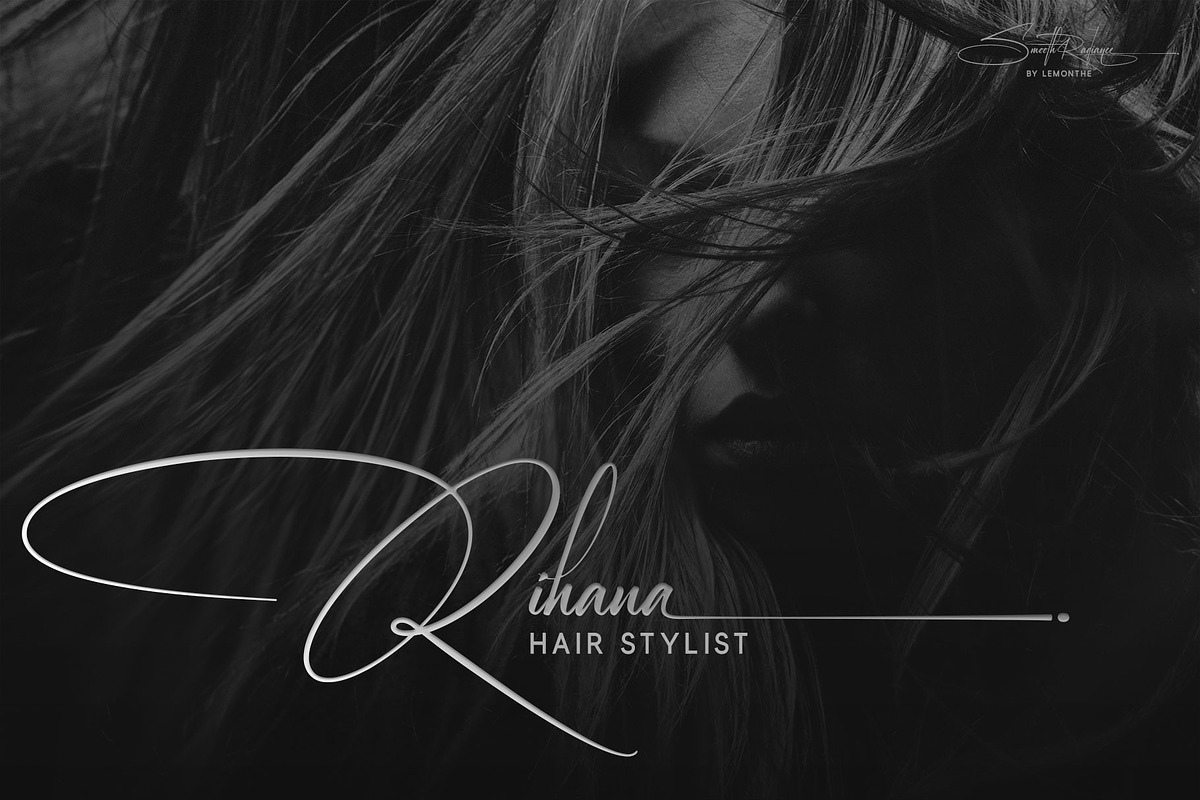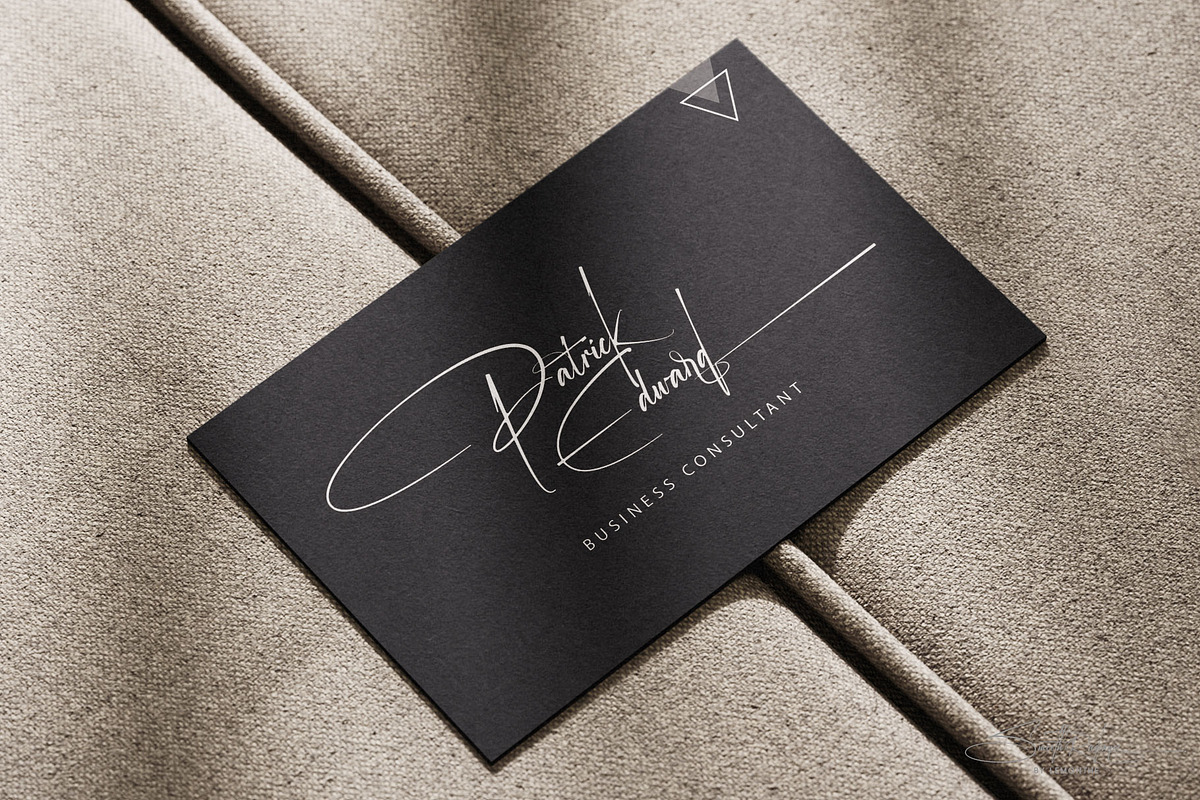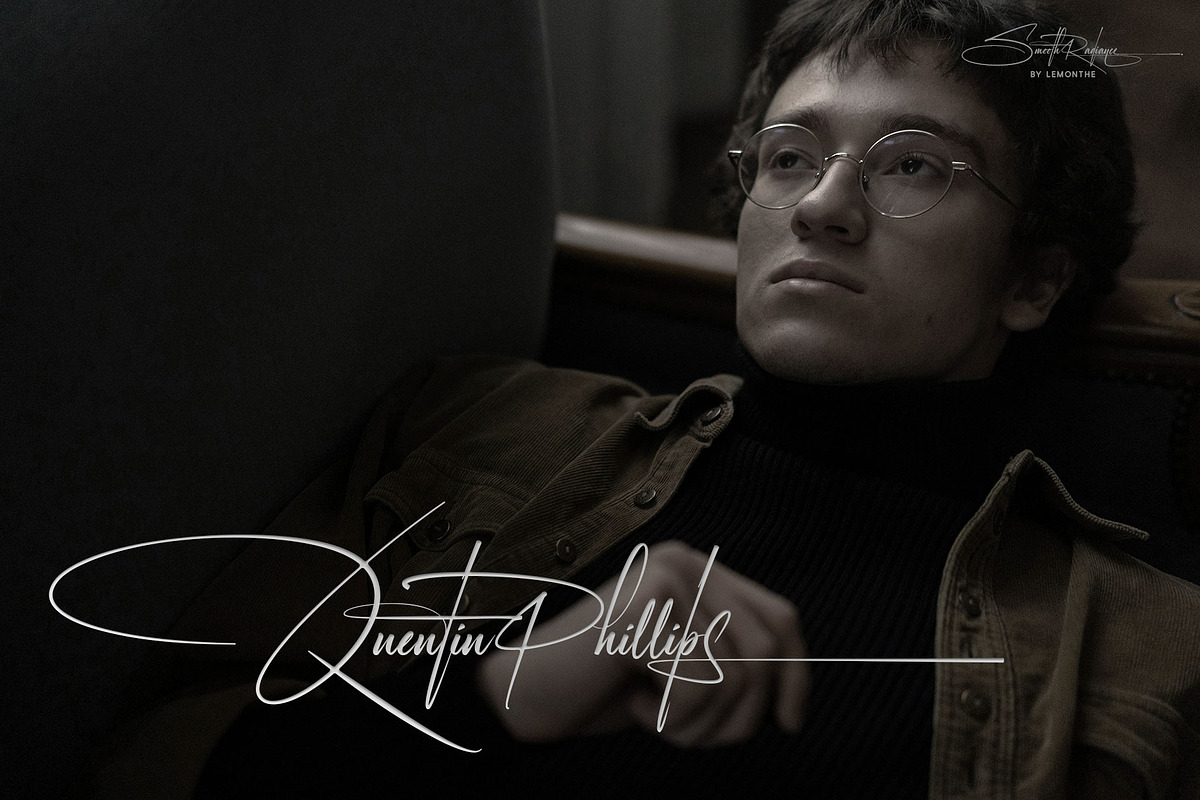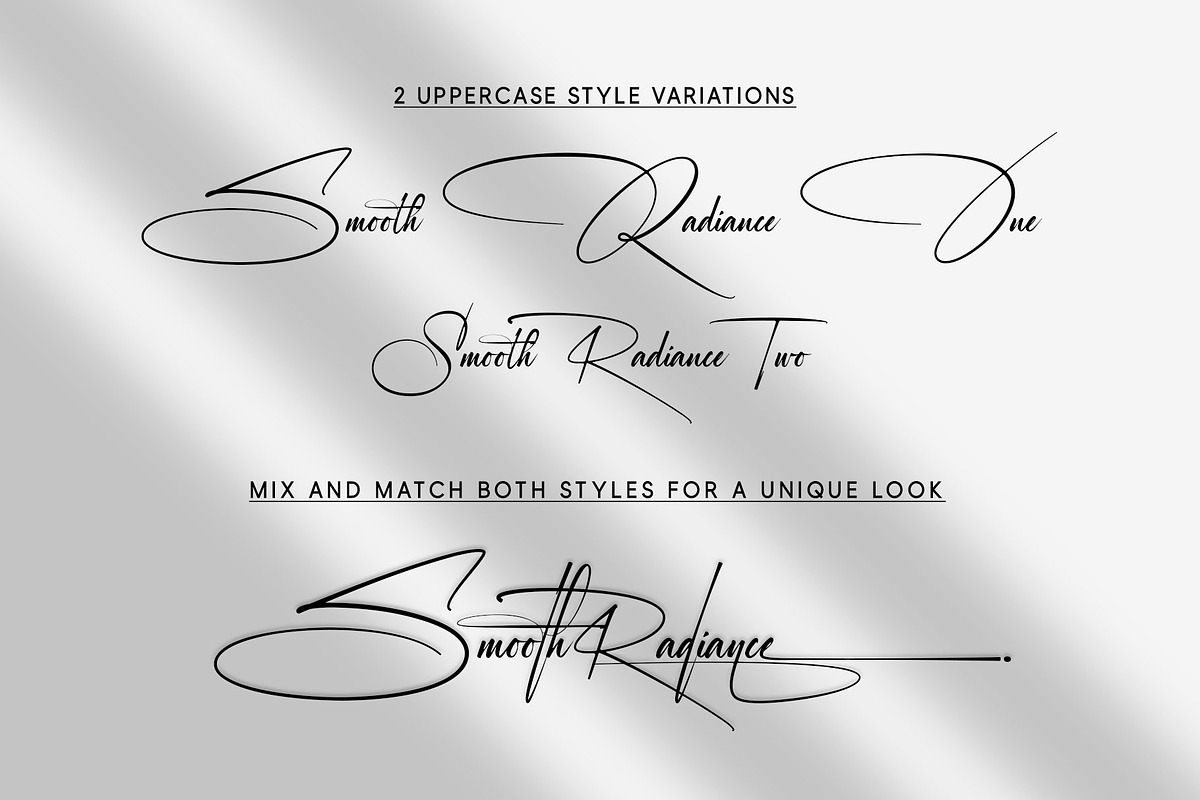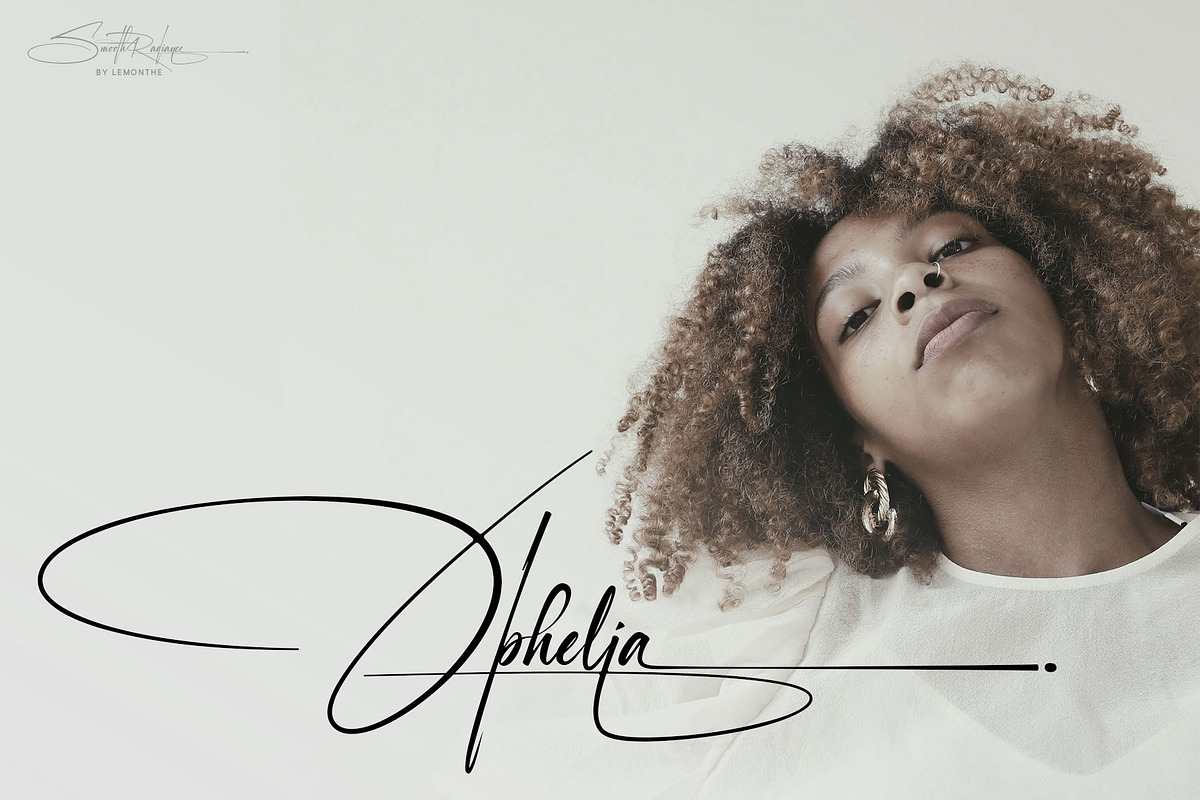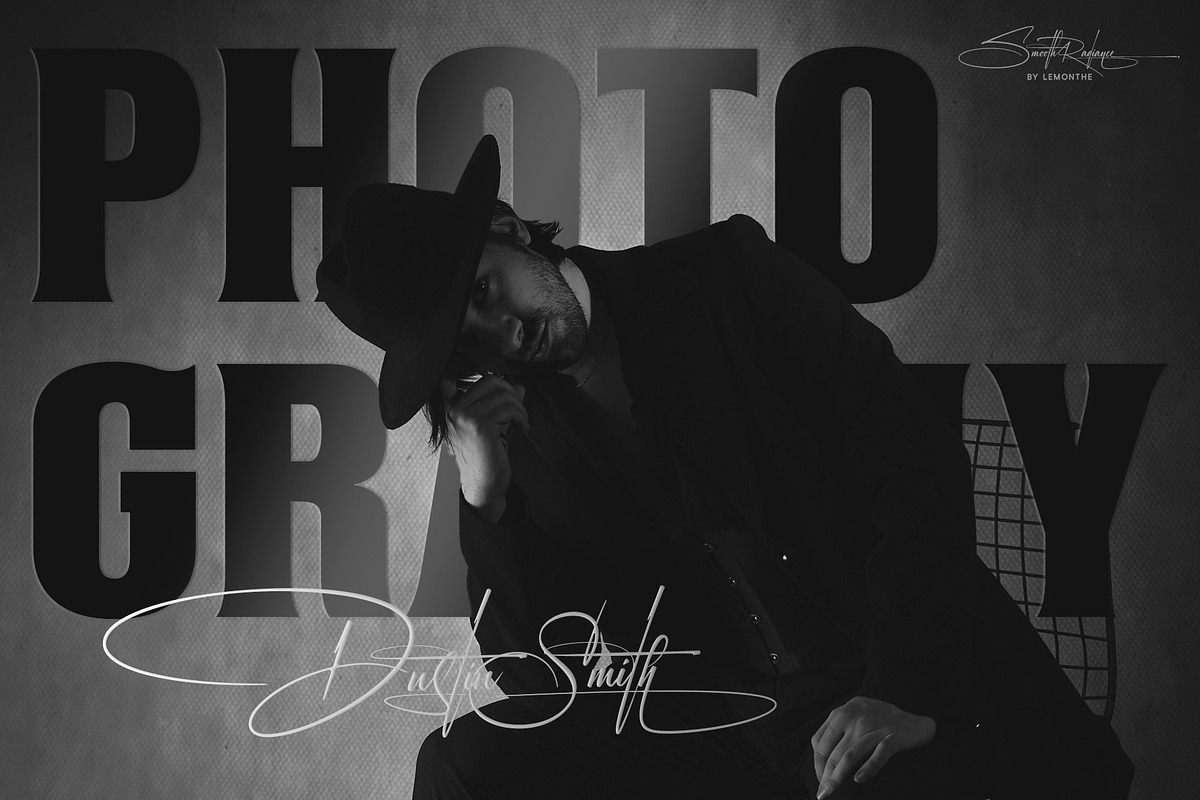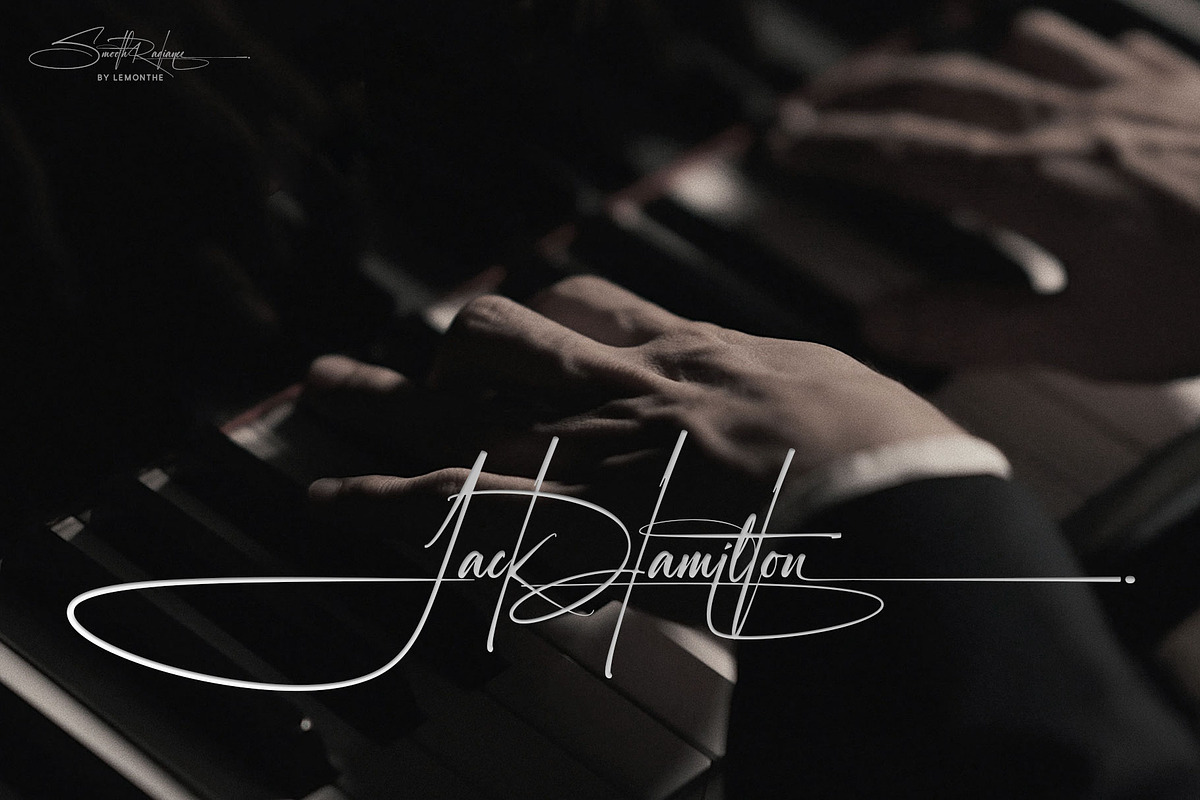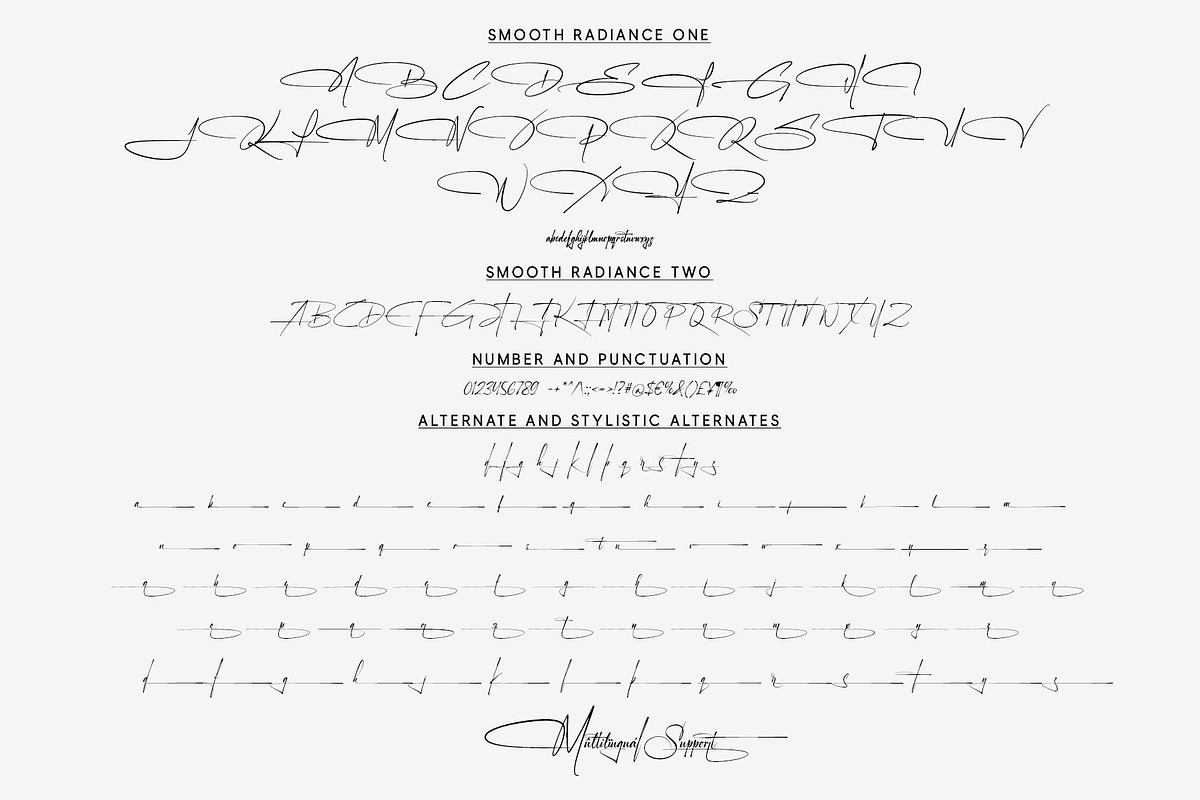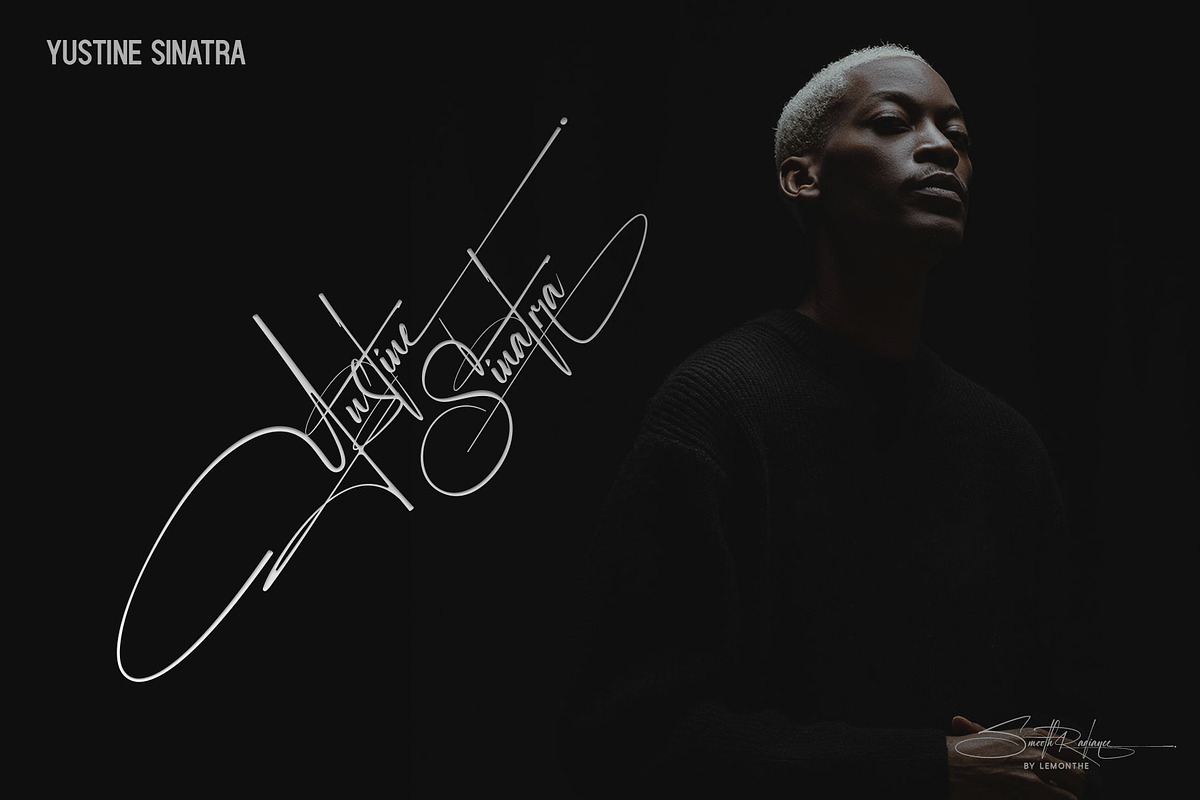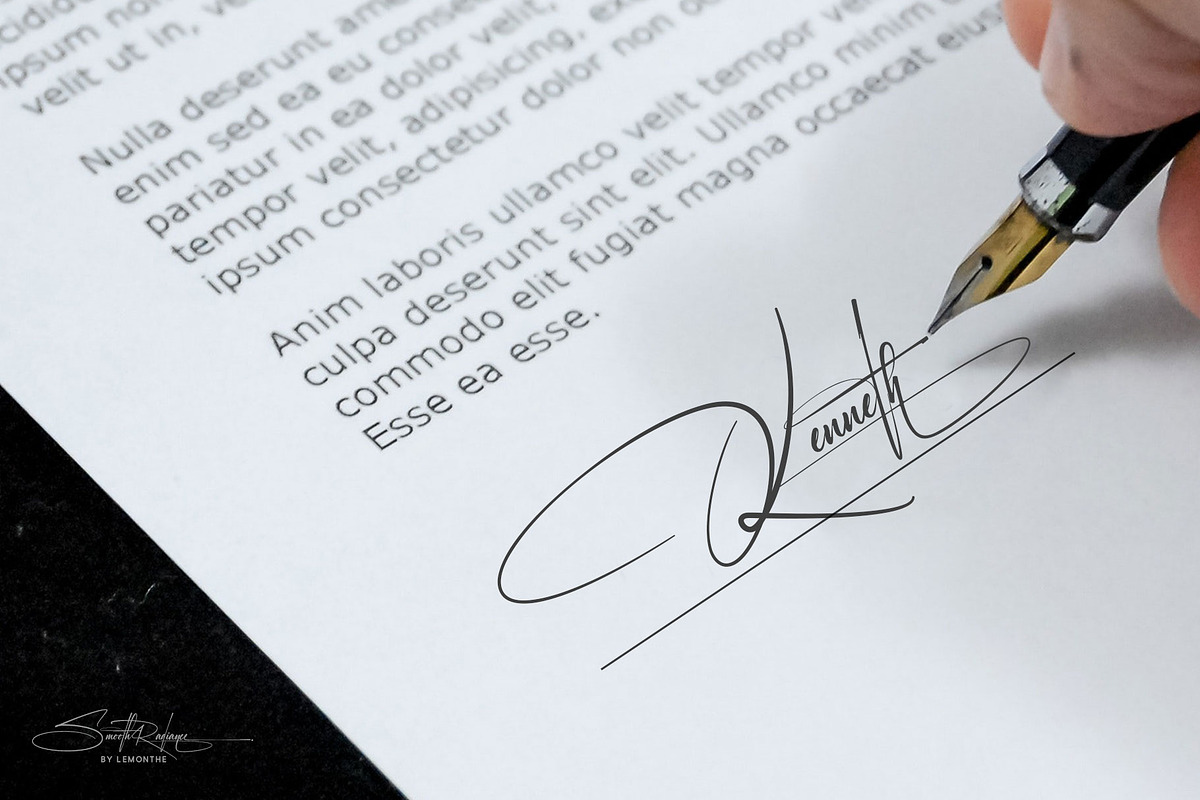
Smooth Radiance | Signature Font
Smooth Radiance is a signature font with a natural and elegant handwritten style. It features two uppercase variations, along with several stylistic alternates and sets, giving you flexibility to create a unique and polished signature look. This font is ideal for logos, branding, wedding invitations, and printed materials, adding a handcrafted and professional feel to your designs.
- Smooth Radiance one & Smooth Radiance two
- Stylistic Set
- SS01: Add 2x underscores at the end of lowercase letters a-z
- SS02: Add 3x underscores at the end of lowercase letters a-z